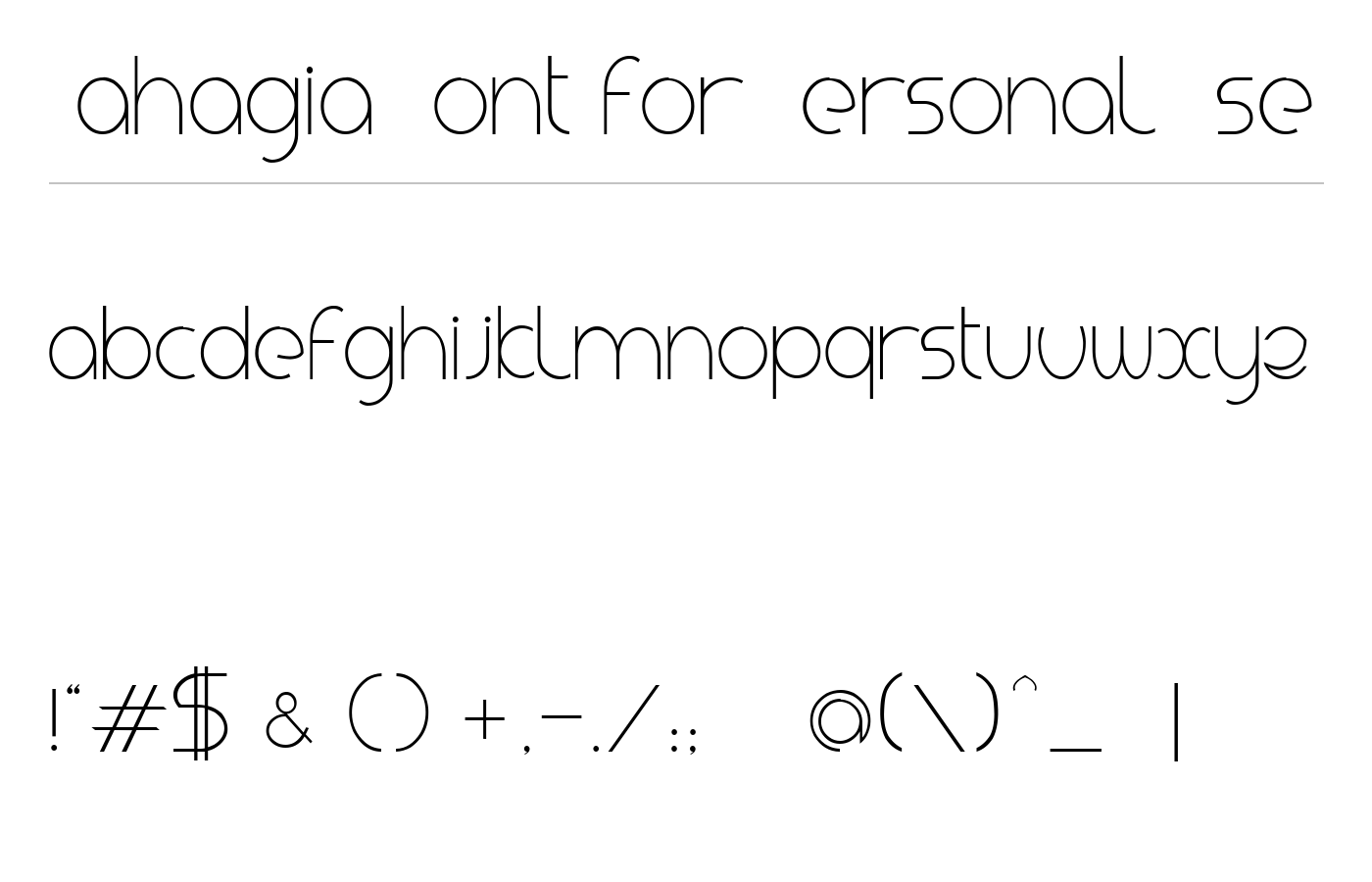
Bahagia is a delicate, modern sans serif font characterized by its thin, geometric lines and elegant rounded letterforms. Its light weight and airy spacing give it a playful yet refined feel, making it ideal for creative branding, stylish headlines, and contemporary design projects that require a touch of sophistication and uniqueness.
Bahagia Font for Personal Use Font
About Bahagia Font for Personal Use Font